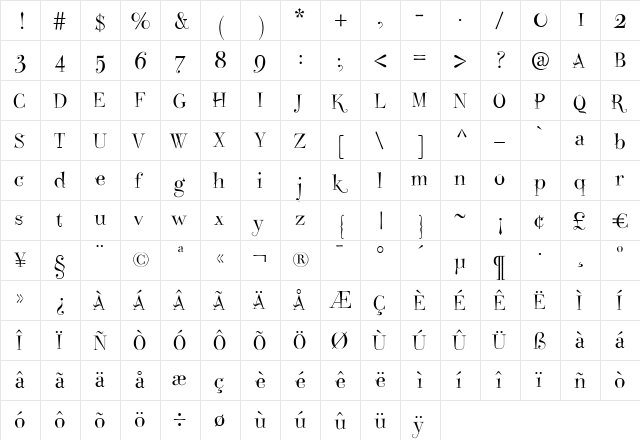
Take Five Plain Regular
Take Five Plain takes a measured approach to typography — its balanced proportions and neutral character make it a reliable workhorse for both digital and print work.